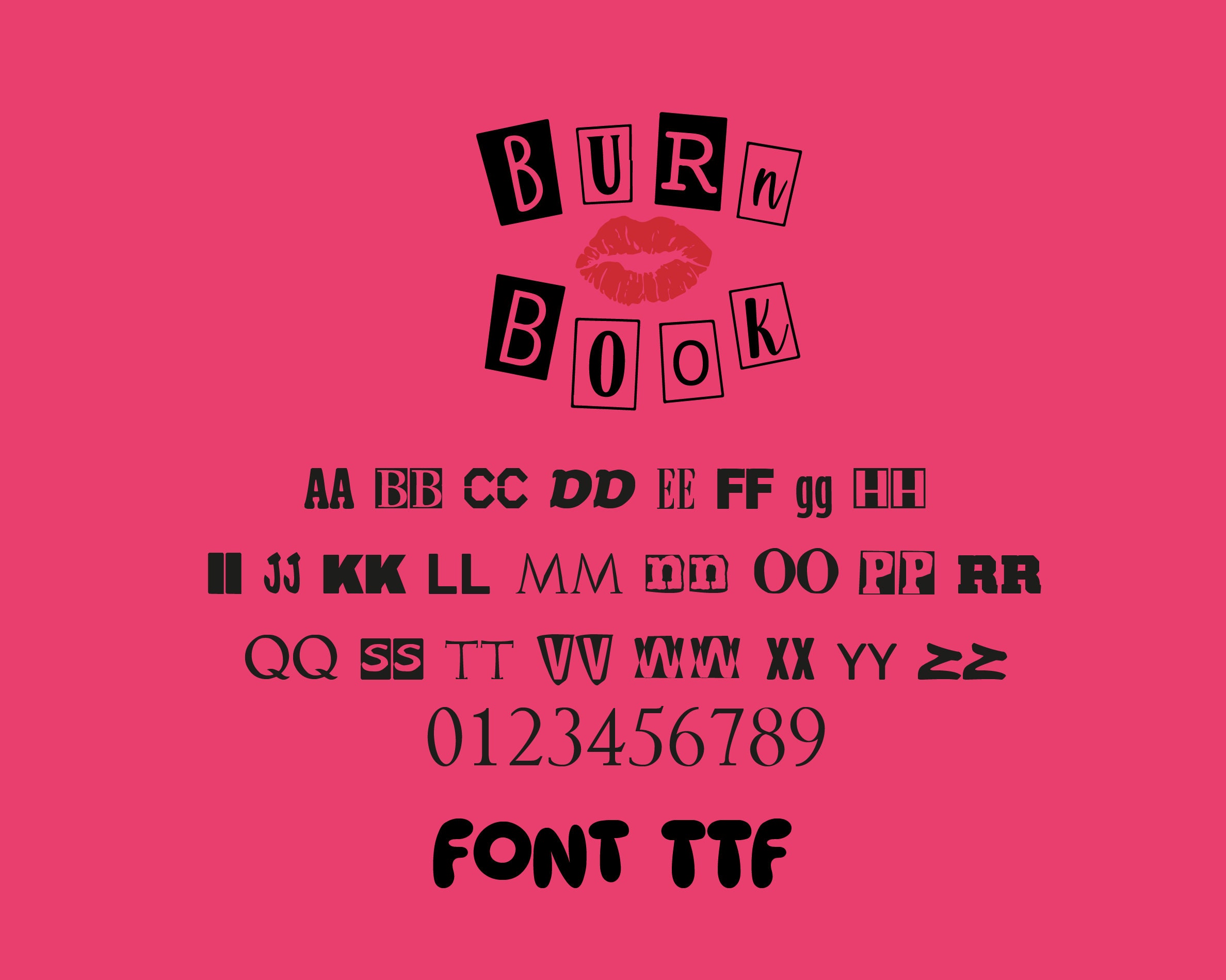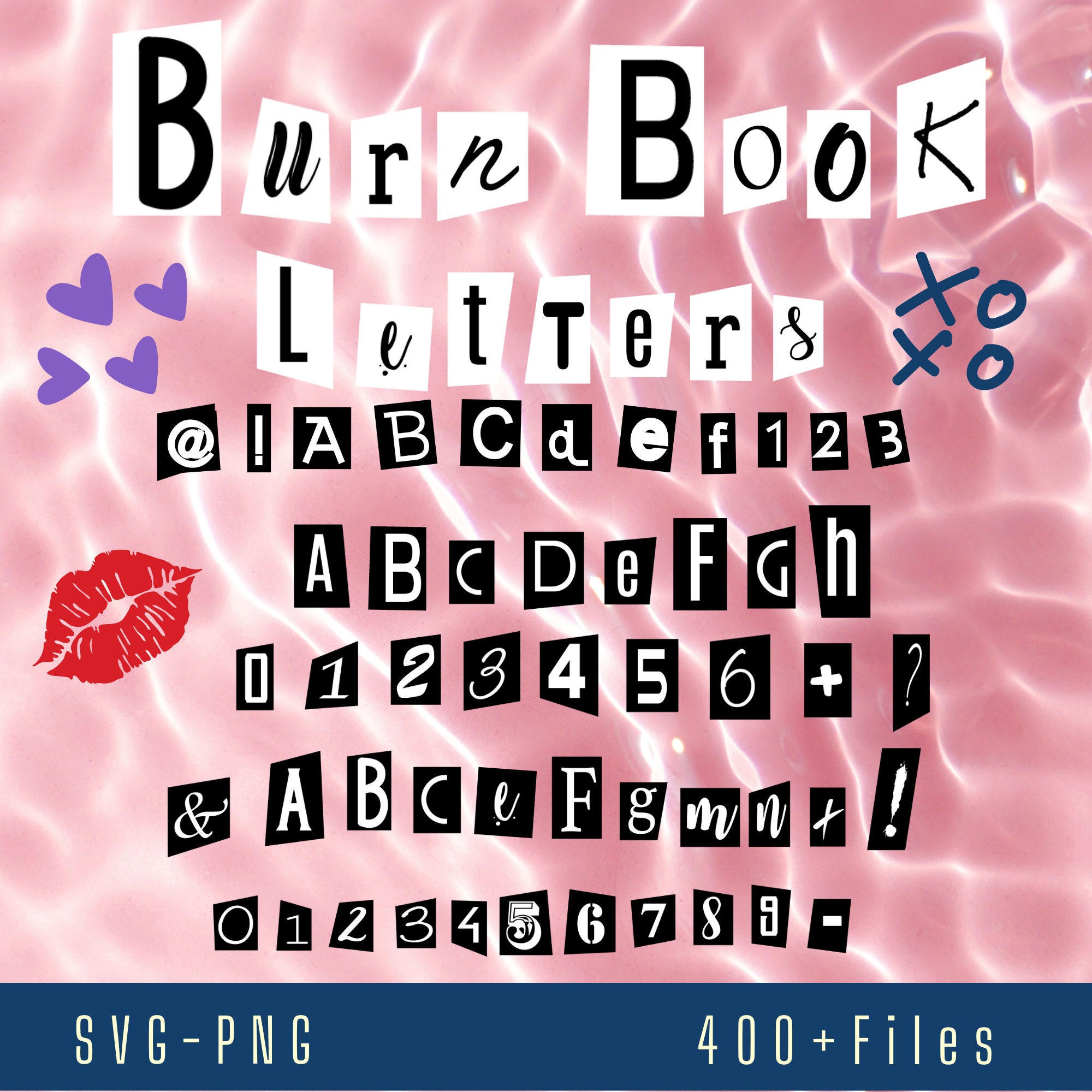
Learn about the Burn Book Font, a distinctive style featured in the movie "Mean Girls". Find out how to download, use, and generate this font, as well as similar alternatives. Download and Generate image with the Burn Book Mean Girl Font Mystery Mixed, Perfect for TV, Movie designs that can be used on any device such as Andriod, PC, Mac, Linux.
Burn Book Font is a serif typeface inspired by the slanderous book full of secrets. It is a versatile and edgy font for labels, logos, posters, and more. Download it for free and explore similar fonts.
Burn Book Font In the film "Mean Girls," the "Burn Book" is a scrapbook created by the Plastics, a popular clique, containing rumors, gossip, and insults about other students and faculty at their high school. The book becomes a major plot point when its contents are made public, causing chaos within the school community. Do you want the output text to wrap around when it reaches the end of the output box? Usually you do, but with some "multi-line" fonts, you don't.
Do you want to show a "randomize" button for the output text box? This feature only makes sense if your font has "randomization" within its custom JavaScript code. Burn Book Font Generator lets you craft sassy, nostalgic logos with this text generator so you can create edgy text images inspired by your favorite teen movies. Burn Book font is a modern serif typeface with a lot of stunning alternative characters, unique ligatures, and multilingual support.
Burn Book Font is a very versatile & delicate font and works well for labels, text for t-shirts, and hoodies, creating minimalist style logos, package designs, and more. The Burn Book font in Canva is a versatile and unique typeface that can add a touch of creativity and edginess to your designs. With its bold, handwritten style, this font is perfect for making bold statements and grabbing attention.